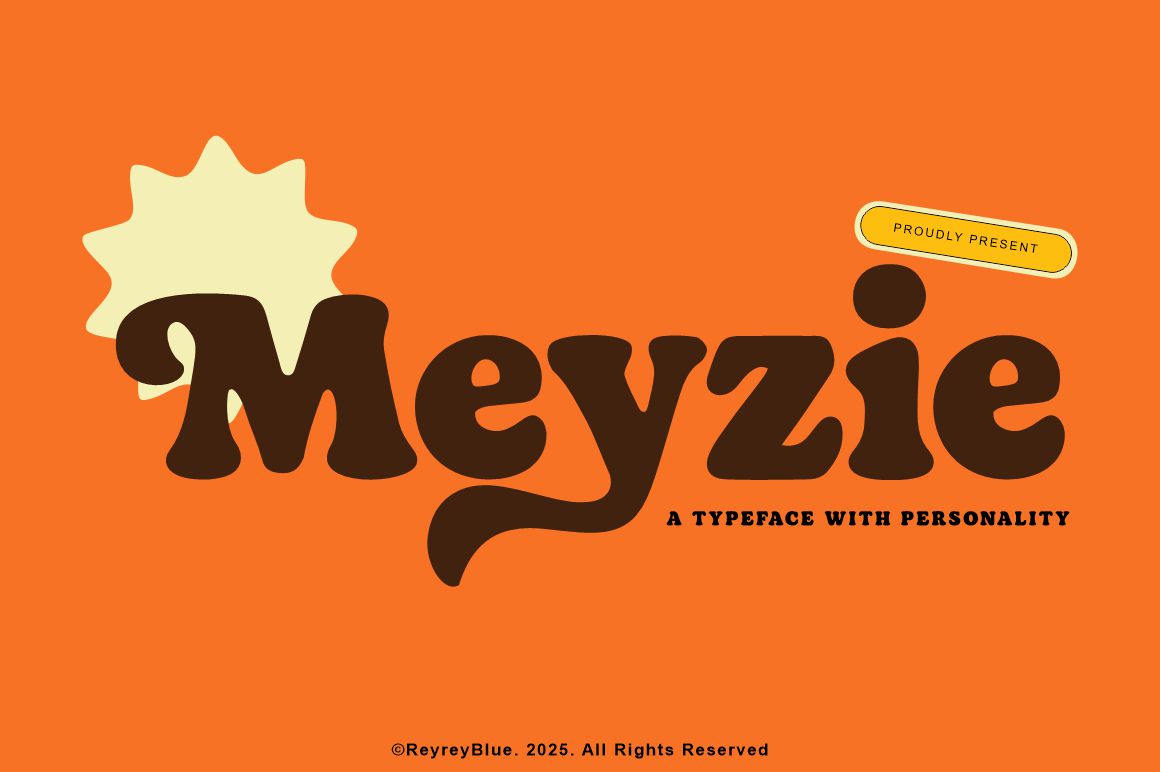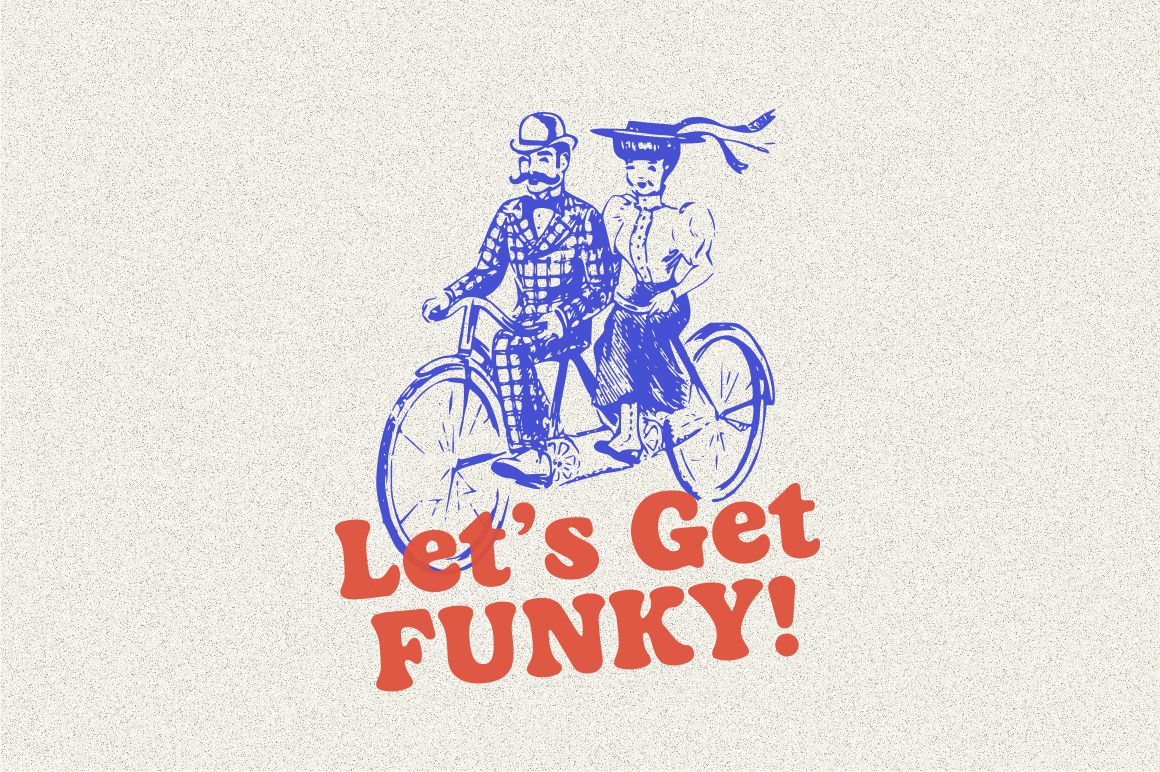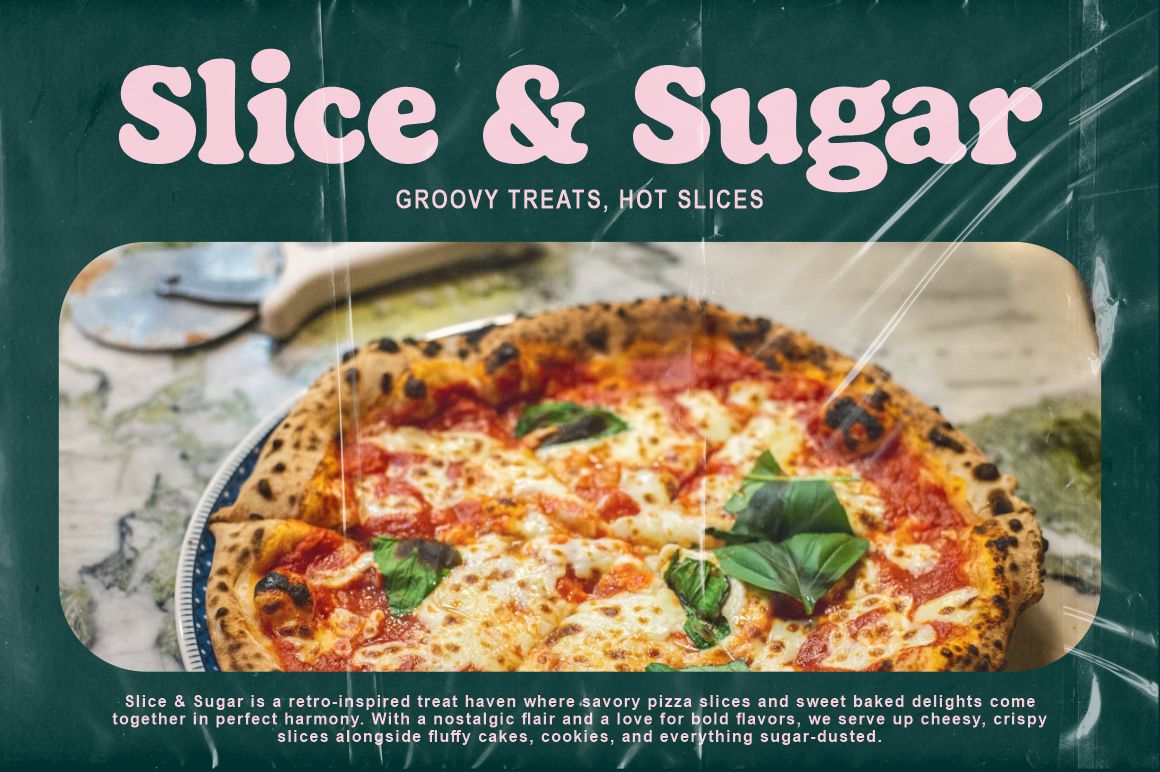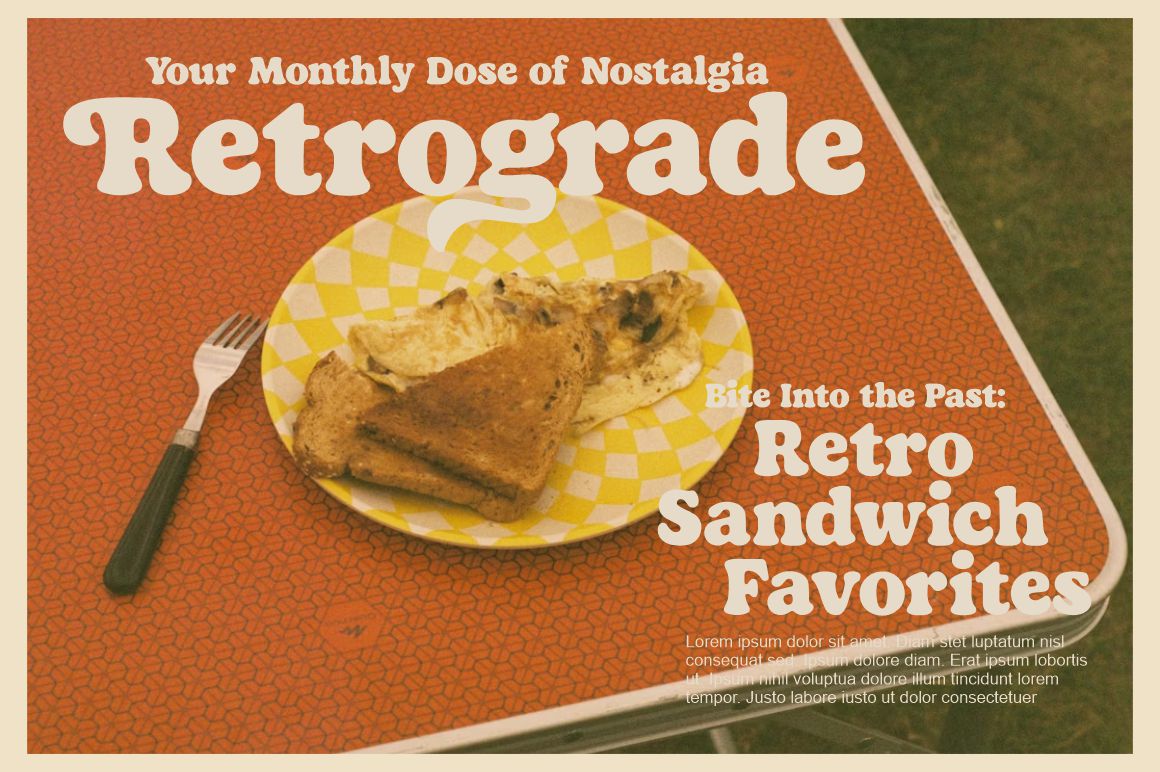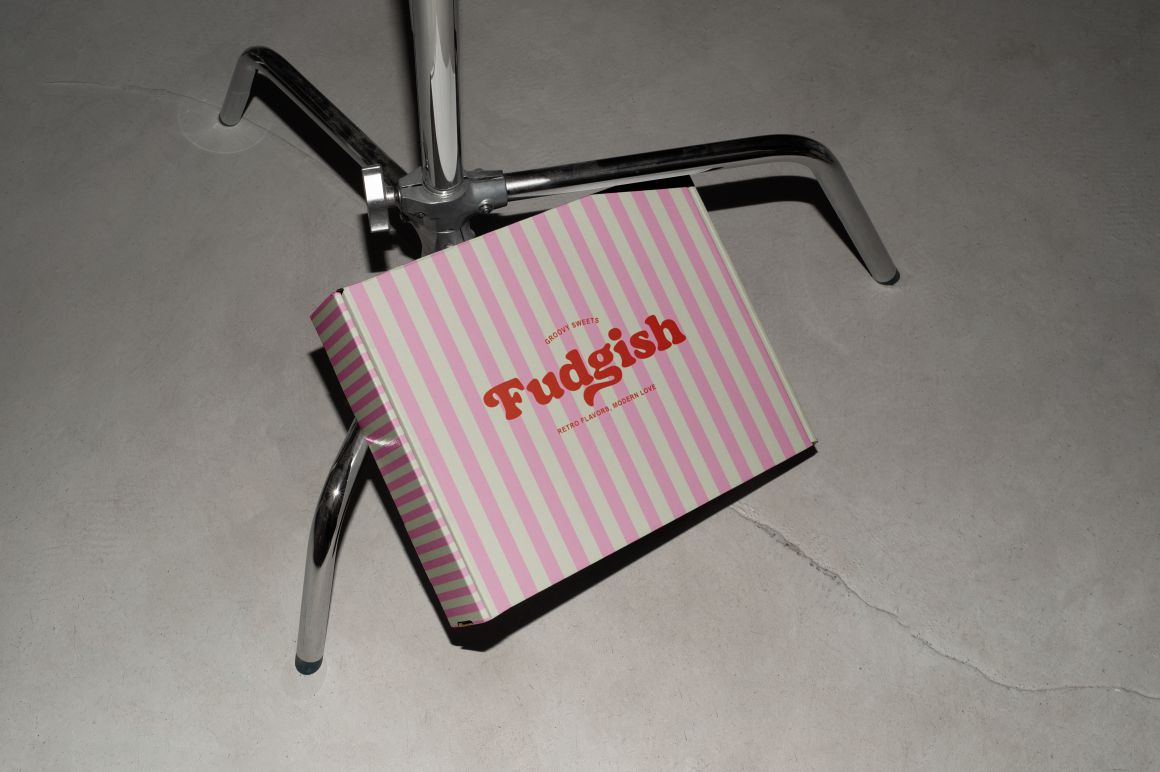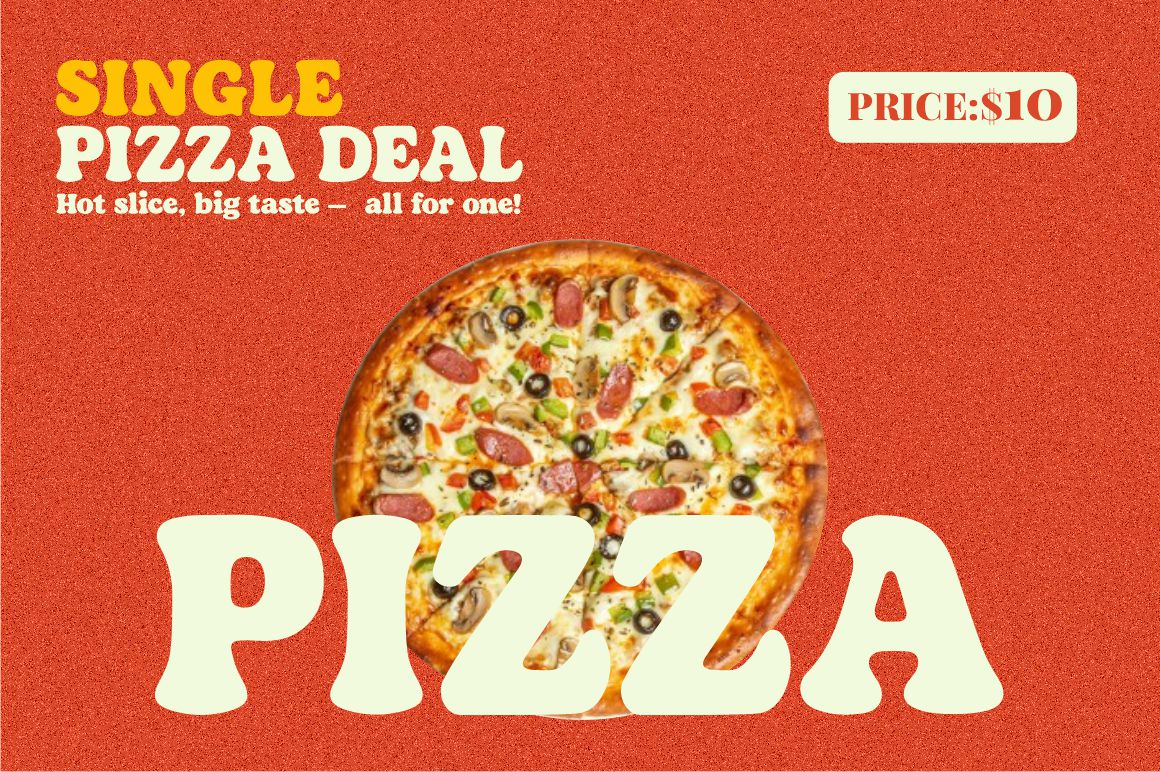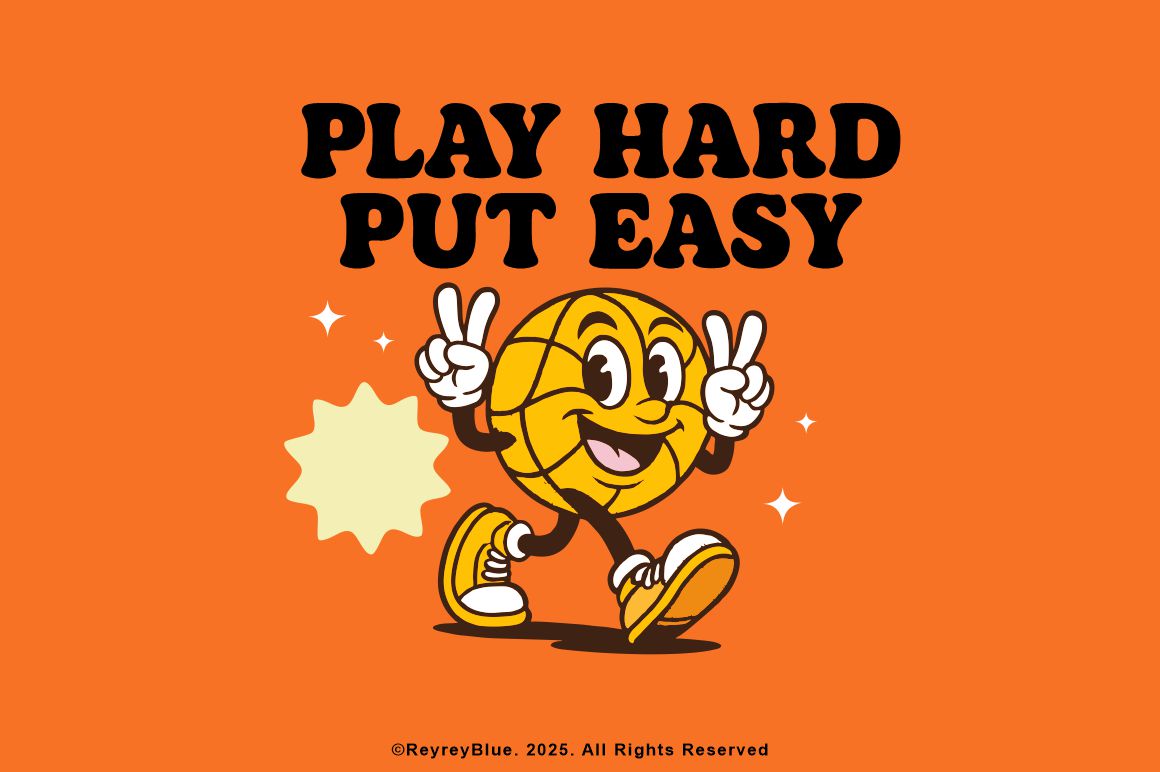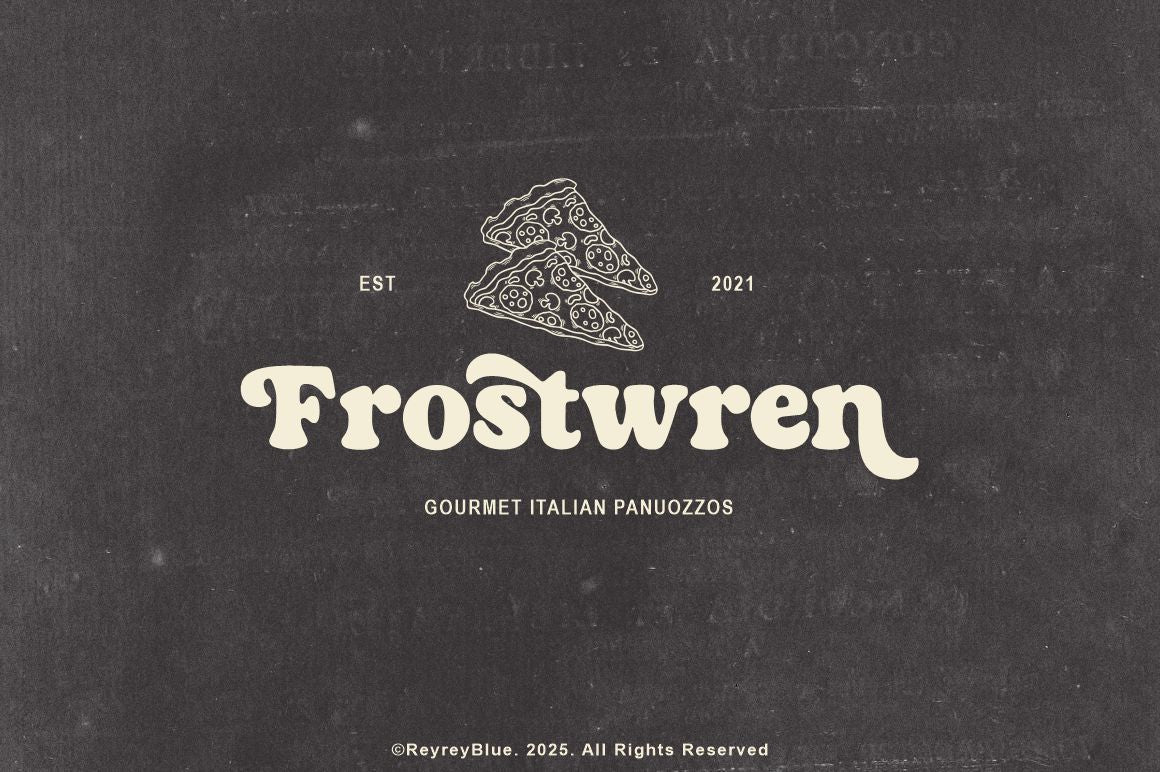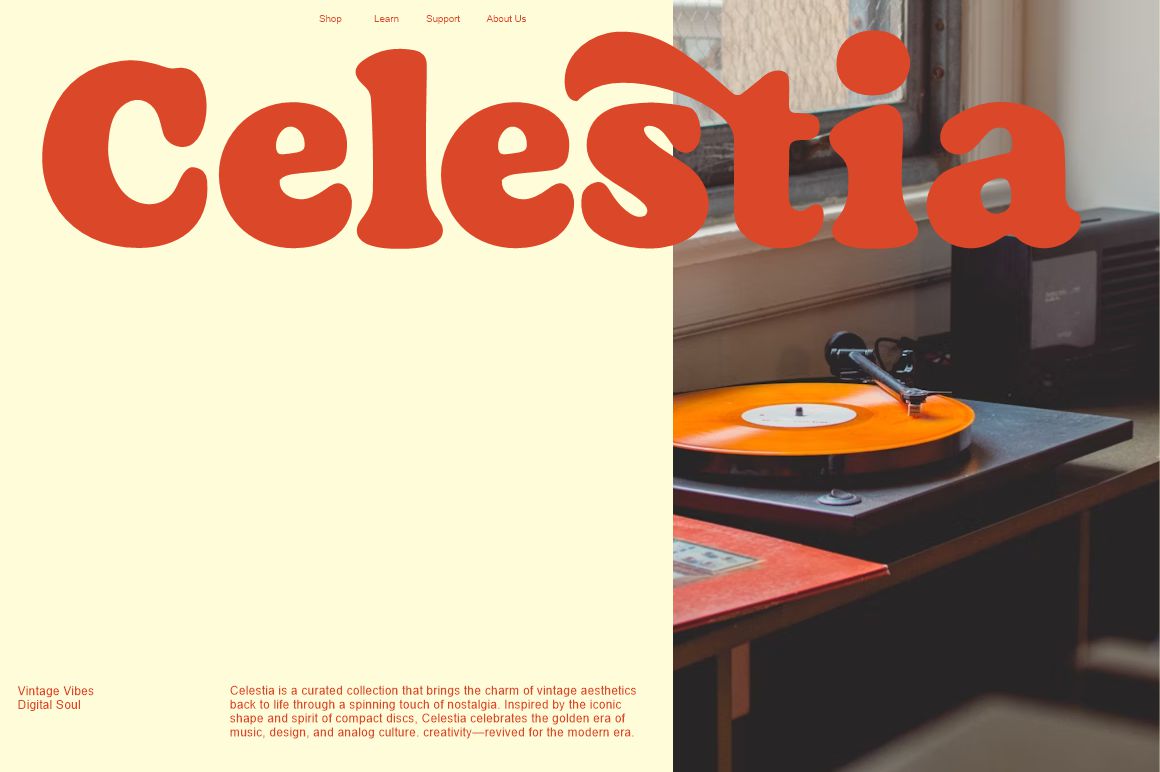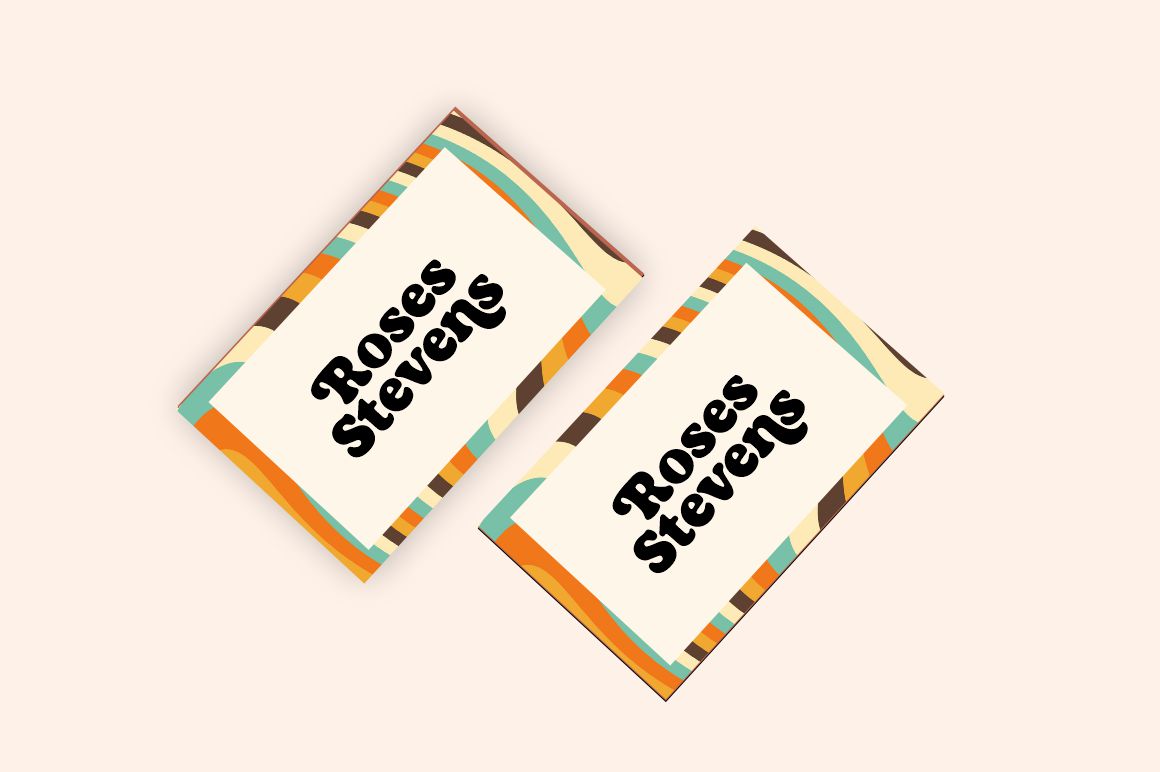
Meyzie – Retro Bold Font with Playful Personality
Introducing Meyzie from ReyreyBlue, a bold retro display font that brings charm, fun, and groovy vibes into your design projects. Inspired by vintage typography from the 60s and 70s, Meyzie features chunky letterforms with whimsical curves and a bold personality, perfect for capturing attention and evoking nostalgia.
Whether you're designing for branding, packaging, posters, t-shirt graphics, or social media, Meyzie delivers a standout look with its unique blend of retro flair and modern fun. This typeface is ideal for projects that need a strong visual impact and a touch of personality.
Fun
This is a fun typeface to play with.